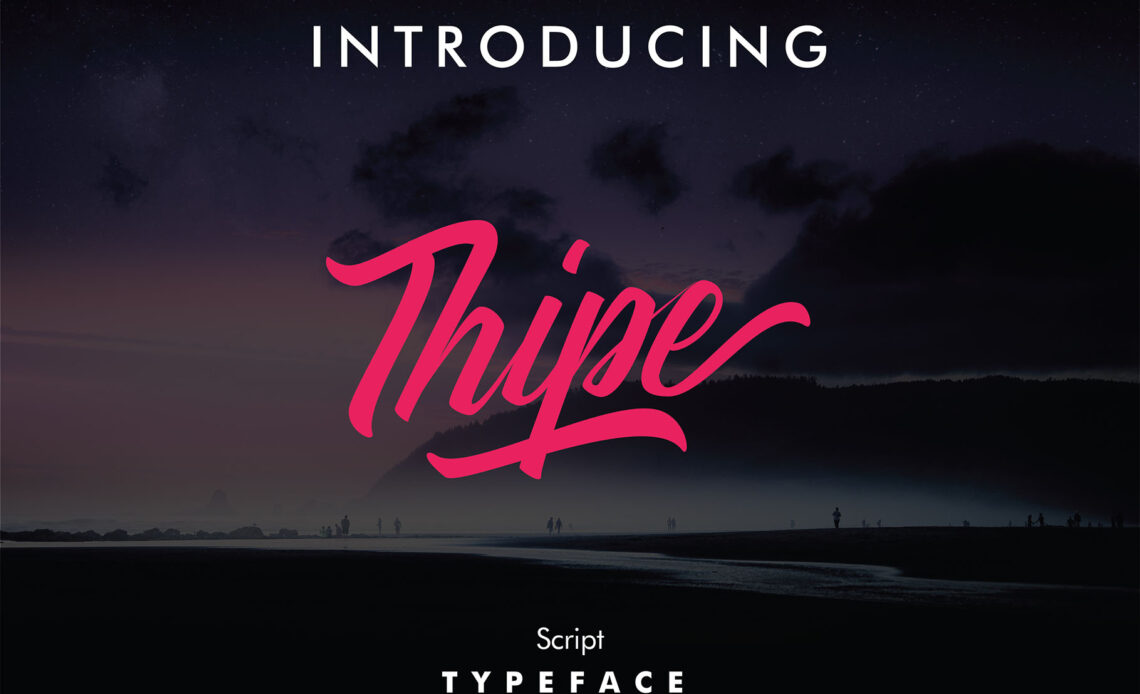
Introducing Thipe Font – The Script That'll Make Your Designs Shine!
Calling all design enthusiasts, typography lovers, and creative minds! Step into the enthralling world of Thipe Font, a breathtaking script font that will captivate your imagination and elevate your designs to new heights.
Crafted by the artistic maestros at Youthlabs, Thipe is a masterpiece that embodies the essence of grace, fluidity, and charm. Its captivating slant bestows upon it an air of dynamism and motion, ensuring that your creations exude energy and vibrancy.
Unleash the power of Thipe to craft captivating headlines that leap off the screen, demanding attention and admiration. Its enchanting curves and elegant strokes bring a touch of artistry to your logotypes, imbuing them with a timeless appeal that will leave an everlasting impression.
Whether you're a seasoned designer or embarking on your creative journey, Thipe Font is the perfect tool to elevate your projects and make your vision a reality. Its versatility extends to a myriad of applications, from social media posts to website designs, from branding materials to packaging, and everything in between.
With Thipe Font at your fingertips, you'll discover a world of endless possibilities. Unleash your creativity and watch as your designs transform into captivating works of art that will leave an unforgettable mark on your audience. Embrace the beauty and dynamism of Thipe Font today, and let your imagination soar to new heights!